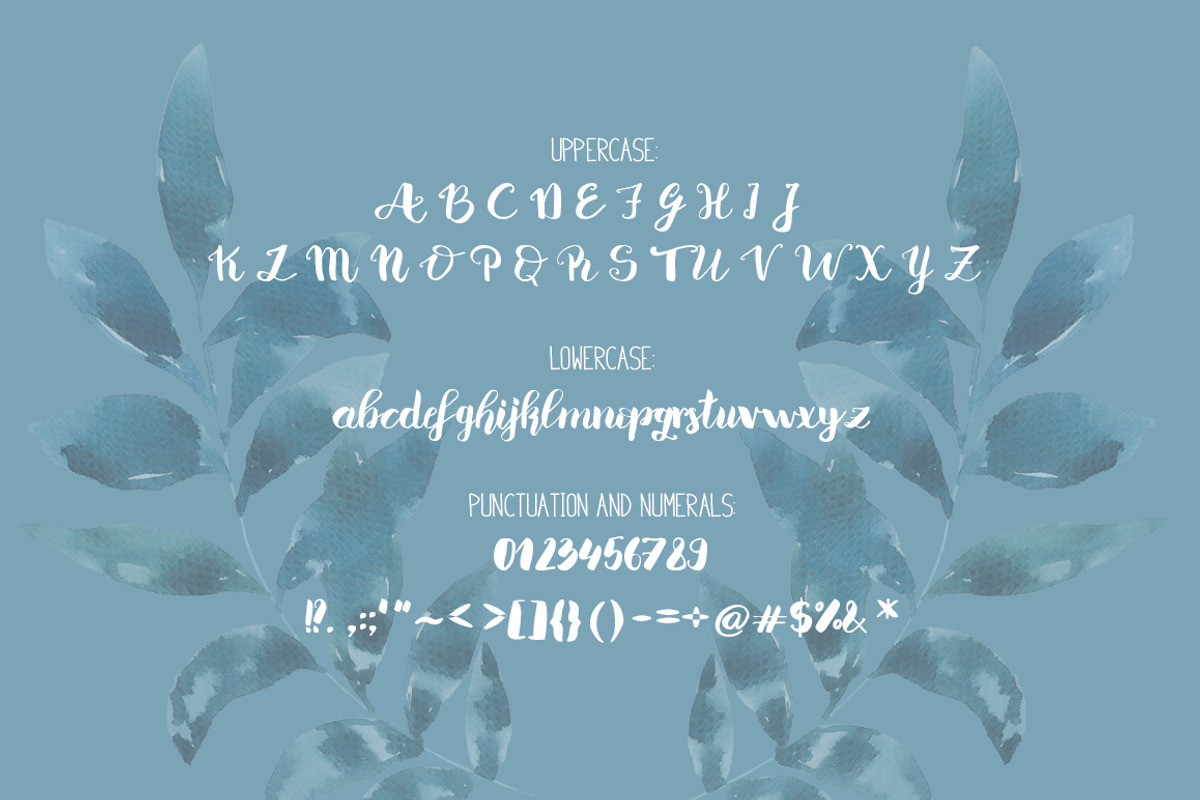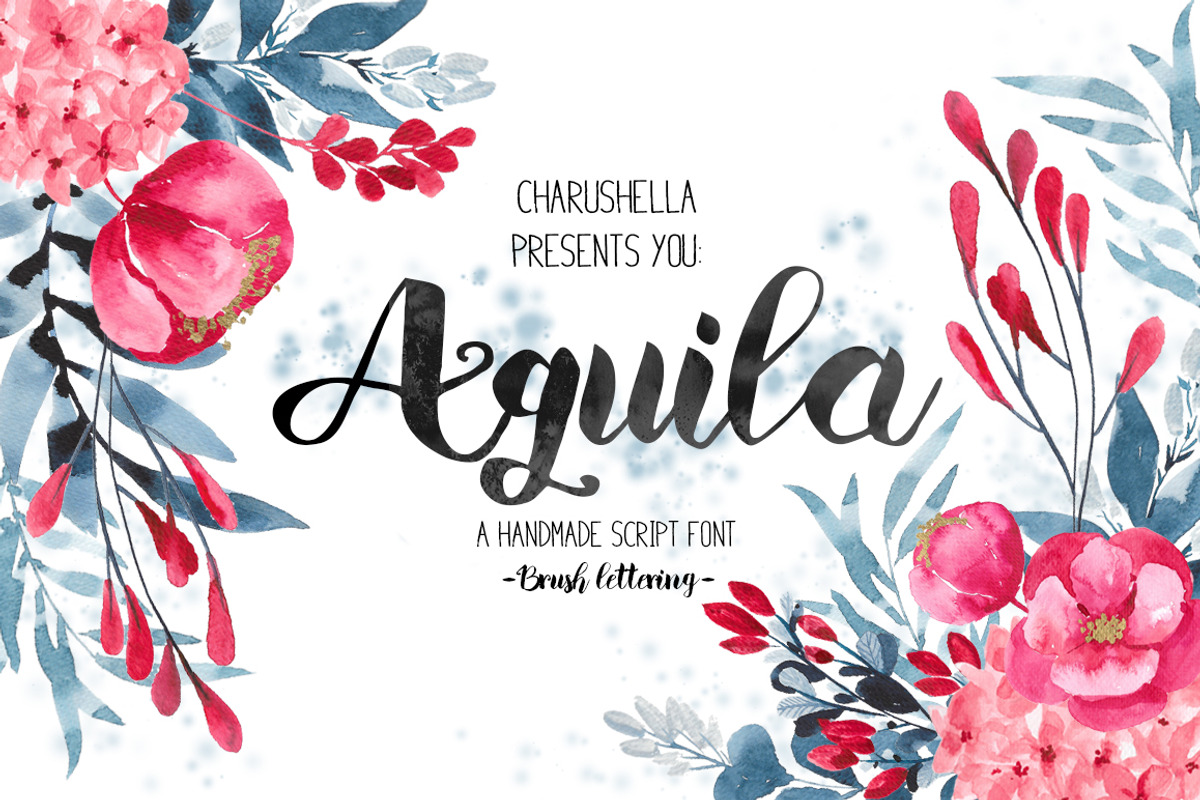
Aquila -Script font
Aquila -Script font by Charushella is a font selected for branding, posters, packaging, typography.
Why Aquila -Script font is worth a look
Aquila -Script font by Charushella fits naturally into Branding, posters, packaging, typography.